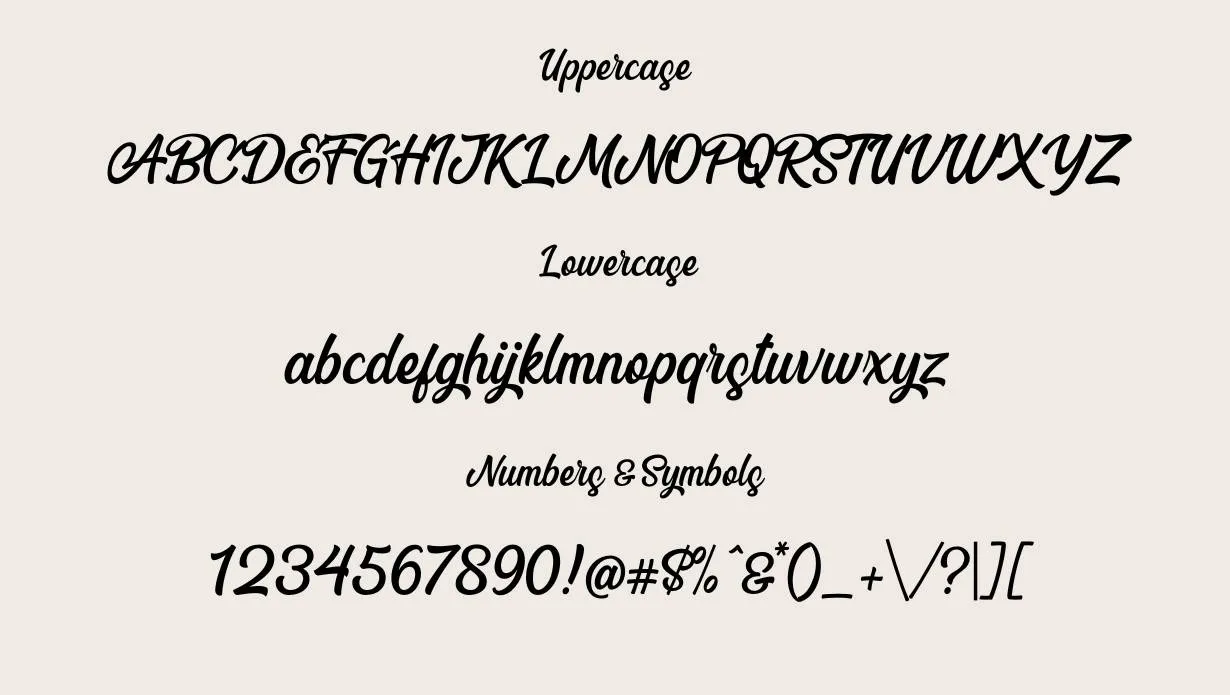
Blackbird Font is a versatile and modern typeface known for its clean and stylish design. It’s often used in various design applications, from branding to web design, where a contemporary and sophisticated appearance is desired.
With its simplicity and elegance, Blackbird Font adds a touch of modernity to your design work. The typeface family’s broad range of language support makes it an excellent companion for decorative fonts such as Droid Sans Font, resulting in a harmonious and visually appealing combination.
| Name | Blackbird Font |
| Designer | Leonit Gashi |